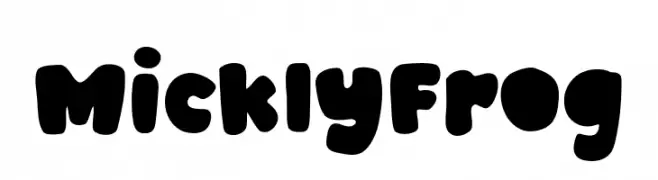
A playful, hand-drawn outline font with a casual and unique style.
A pictorial, decorative font mimicking ancient cave art and petroglyphs.
A smooth, flowing script font with an elegant, casual style.
A font inspired by ancient cave paintings, featuring primitive and expressive symbols.
A bold, chalk-textured font with a hand-drawn, informal style.
A decorative font with a cross-stitch pattern, resembling traditional embroidery.
A pictographic, decorative font mimicking ancient stone carvings.
A casual, handwritten font with a playful and informal style.
Whimsical, cartoon-inspired font with playful, rounded letterforms.
A bold, handwritten font with a playful and dynamic style.
A playful font with characters inside eight ball designs, perfect for decorative use.
A playful font with characters enclosed in paint cans, ideal for creative projects.
A casual, handwritten font with a playful and informal style.
A casual, handwritten font with a lively and organic feel.